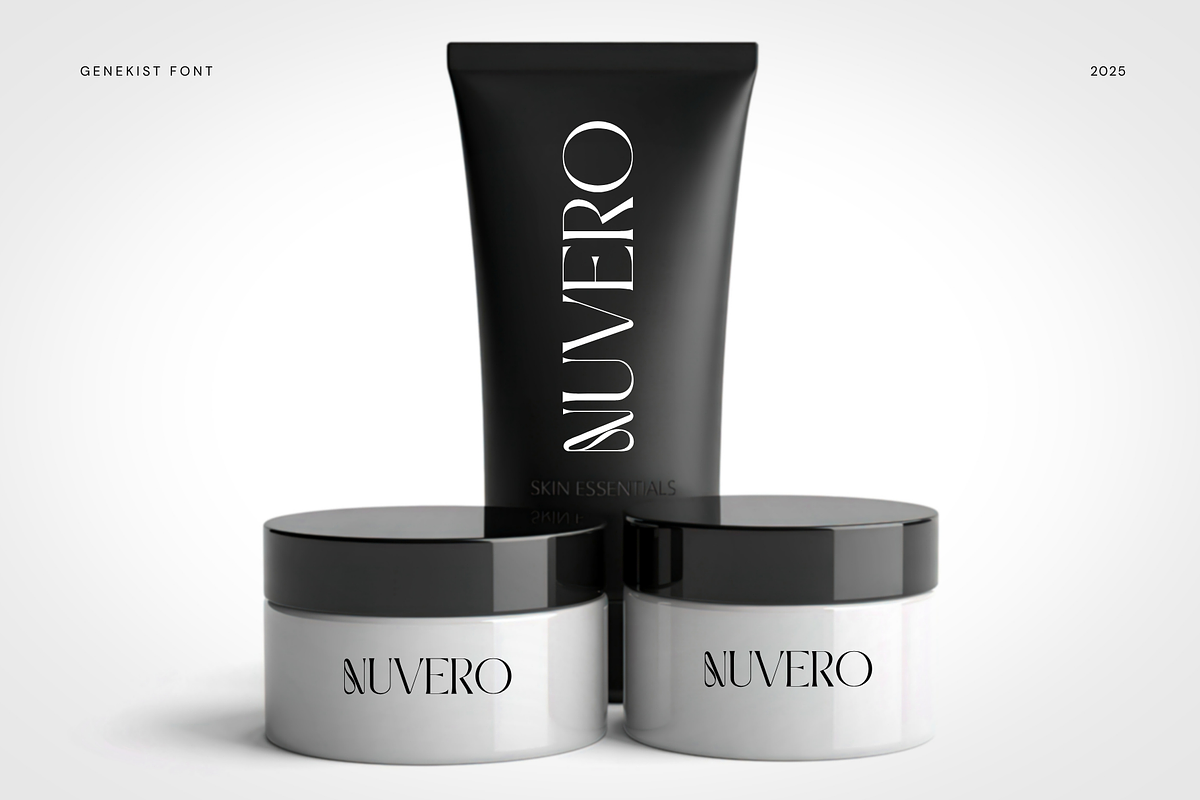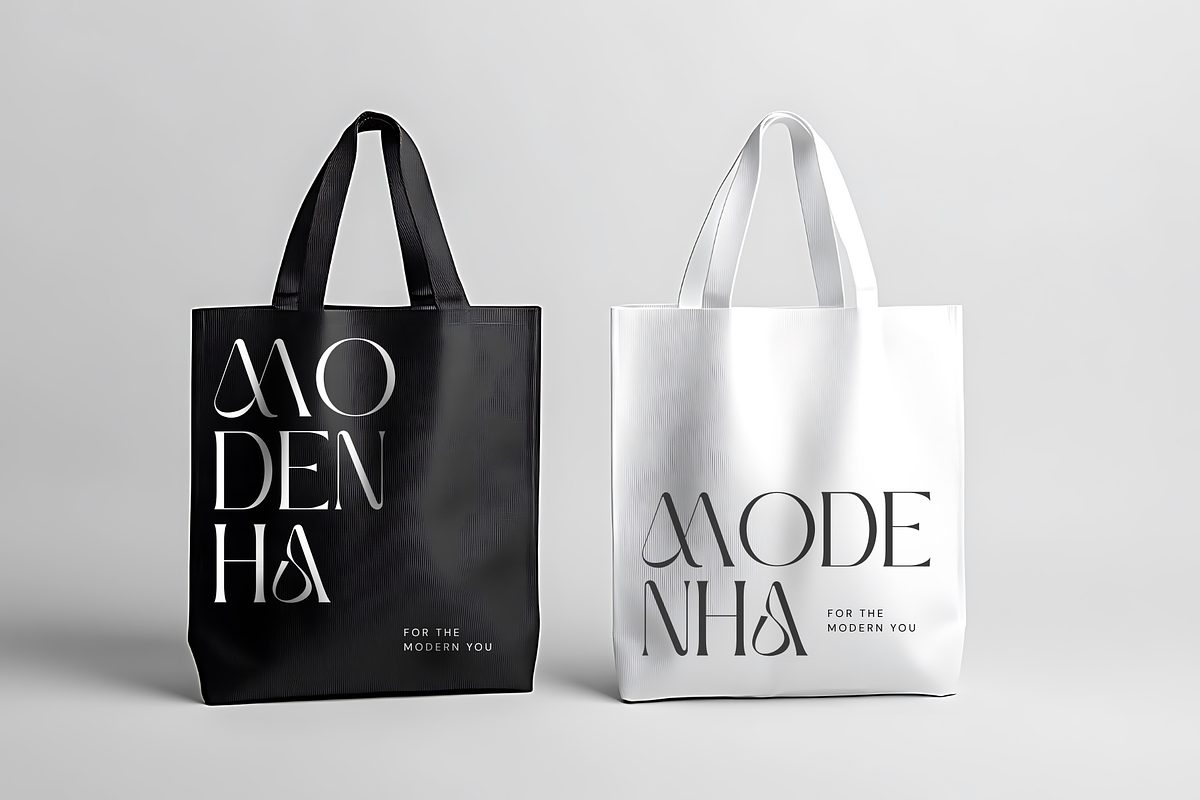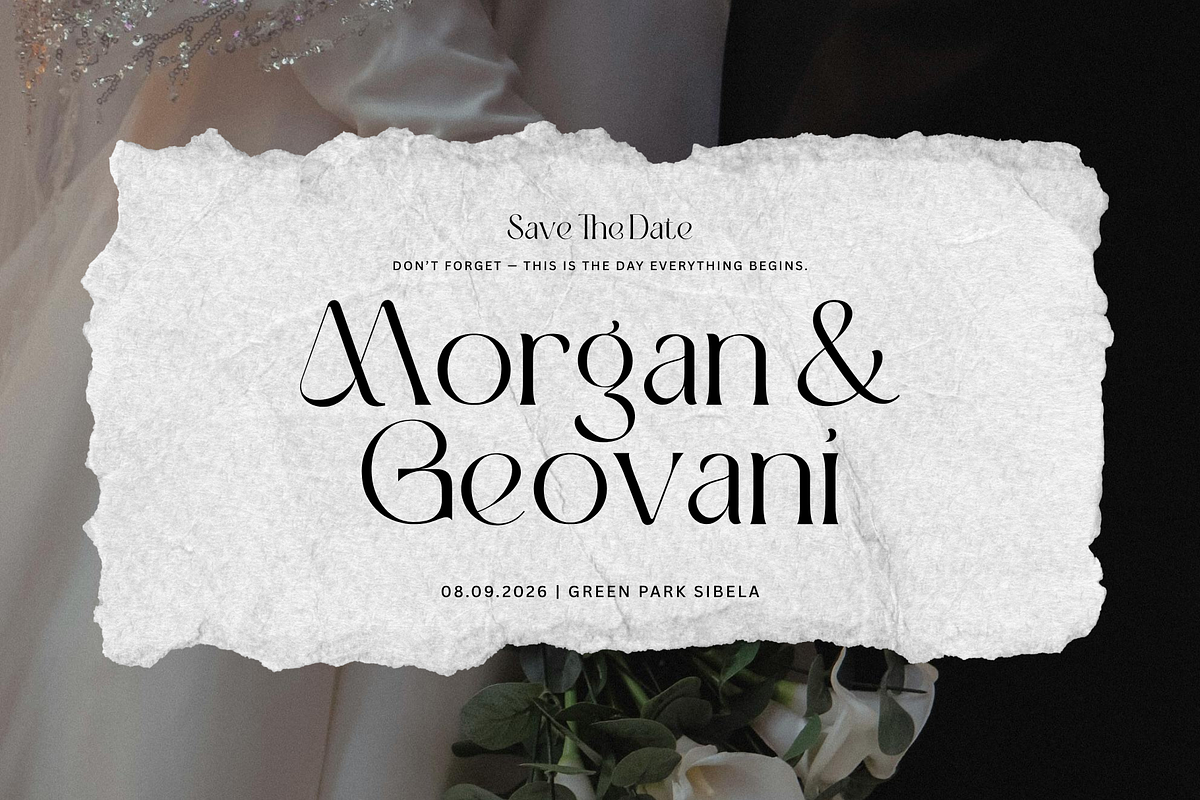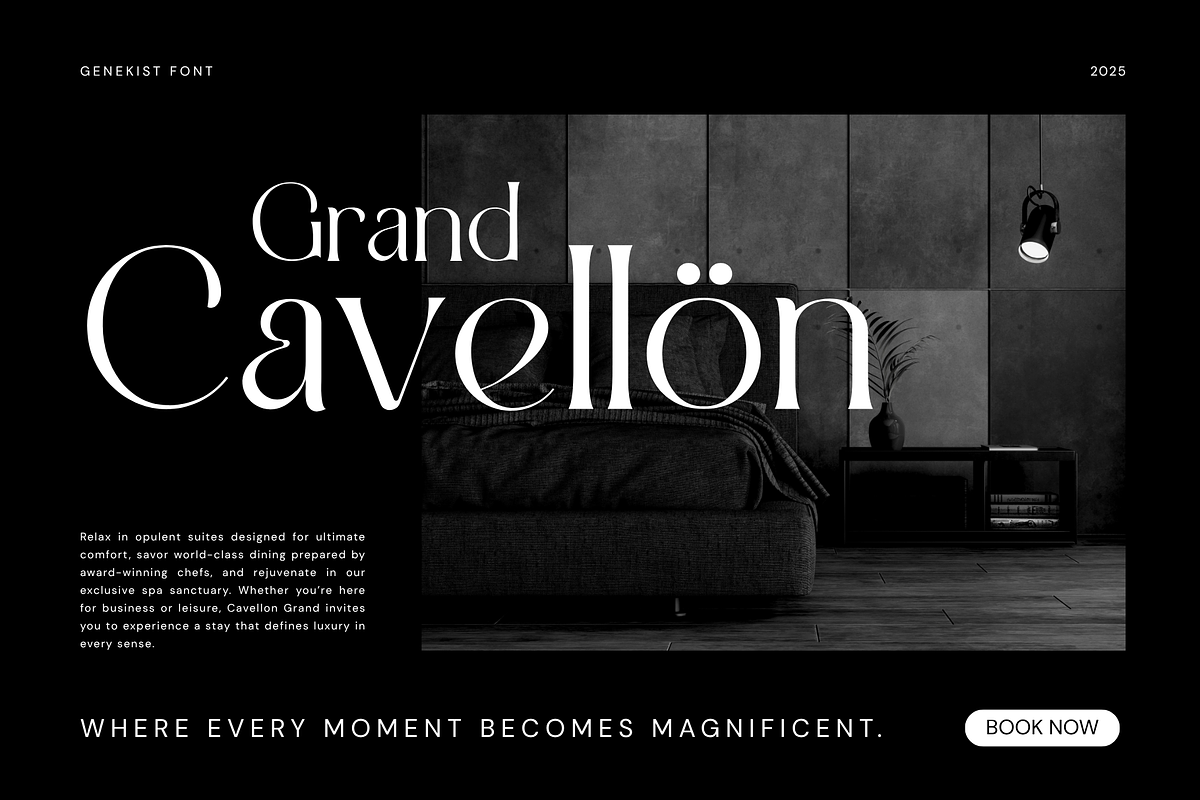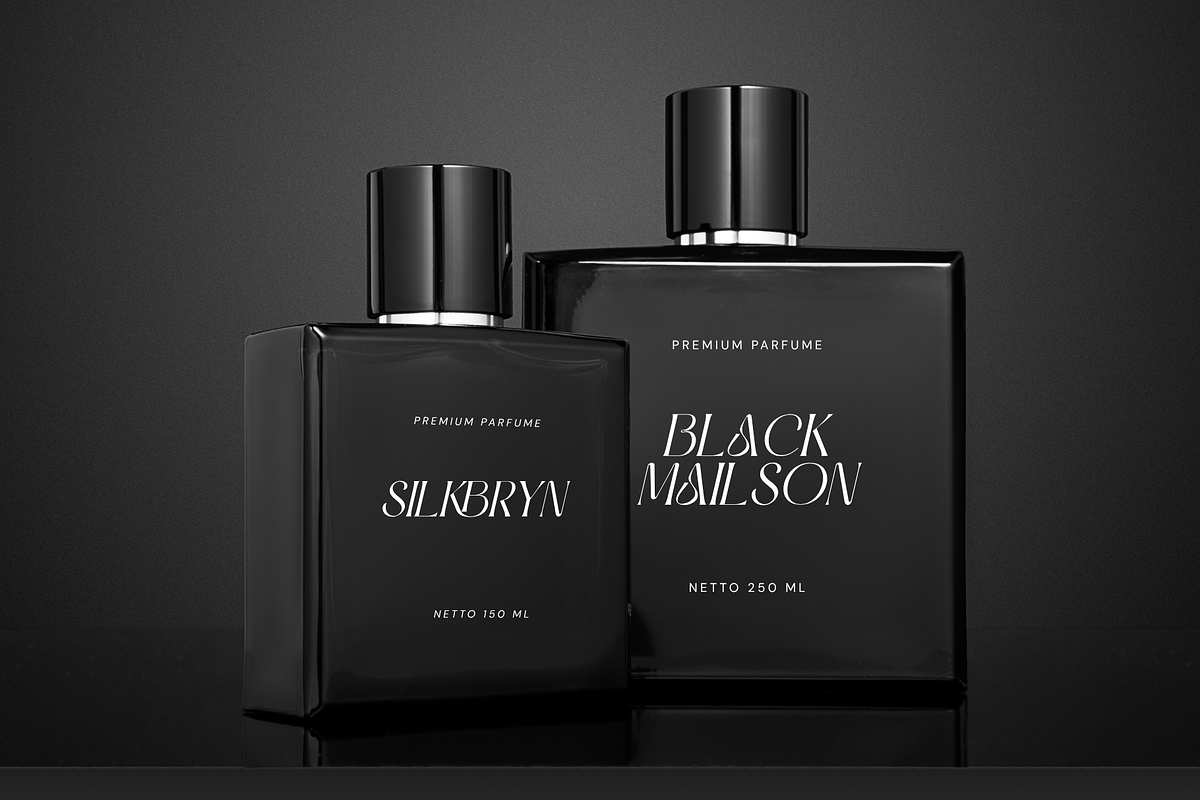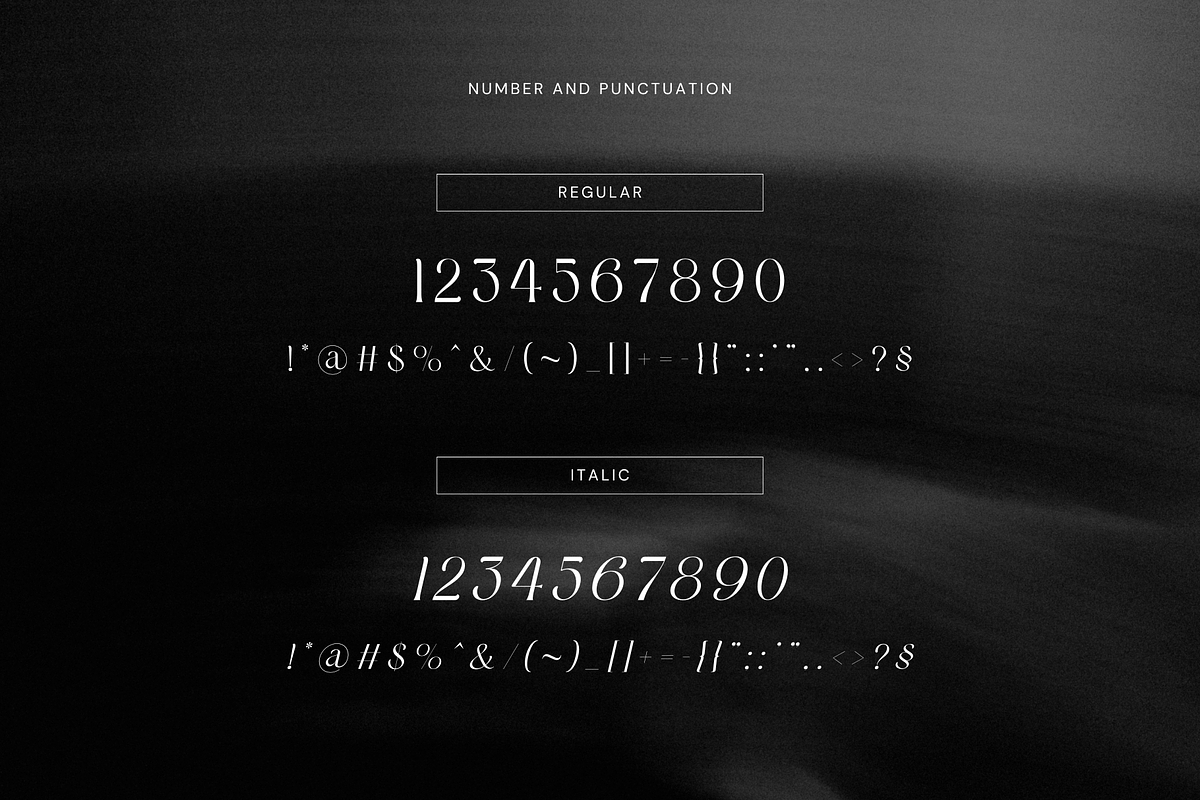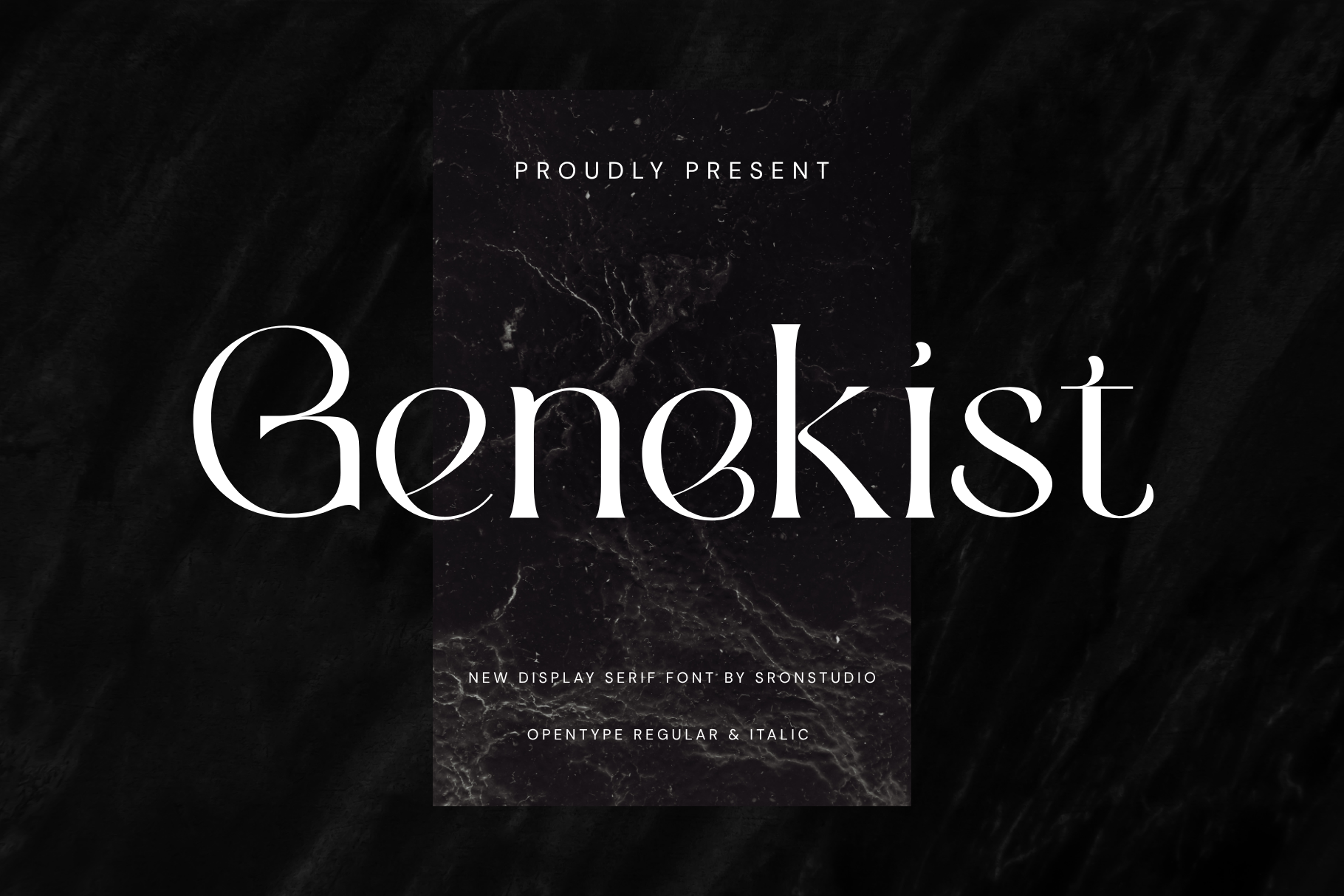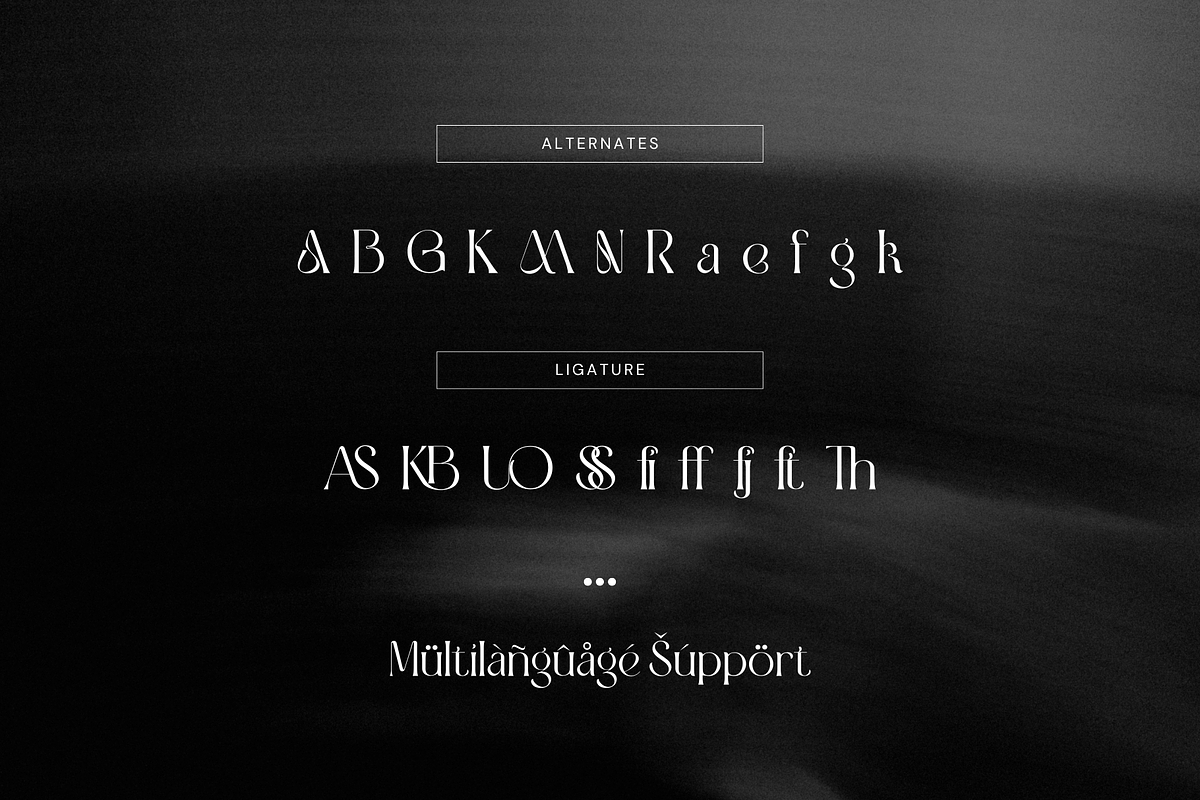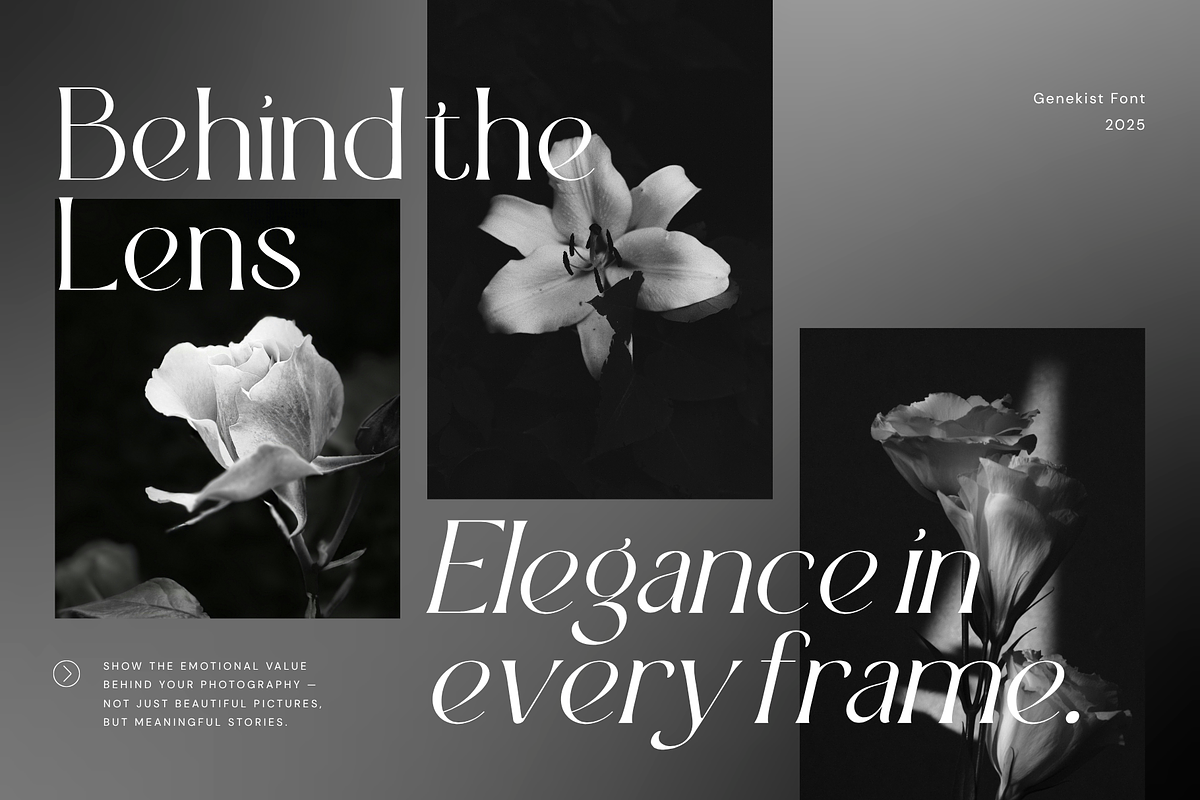
Genekist - Serif Font
Genekist is an elegant serif font that embodies timeless beauty and sophistication. With its refined letterforms, high contrast strokes, and graceful curves, this font is perfect for luxury branding, editorial layouts, invitations, and fashion-related designs. Genekist blends classic elegance with a modern touch, making every project look polished and professional. What’s Included:
- Alternates & ligatures